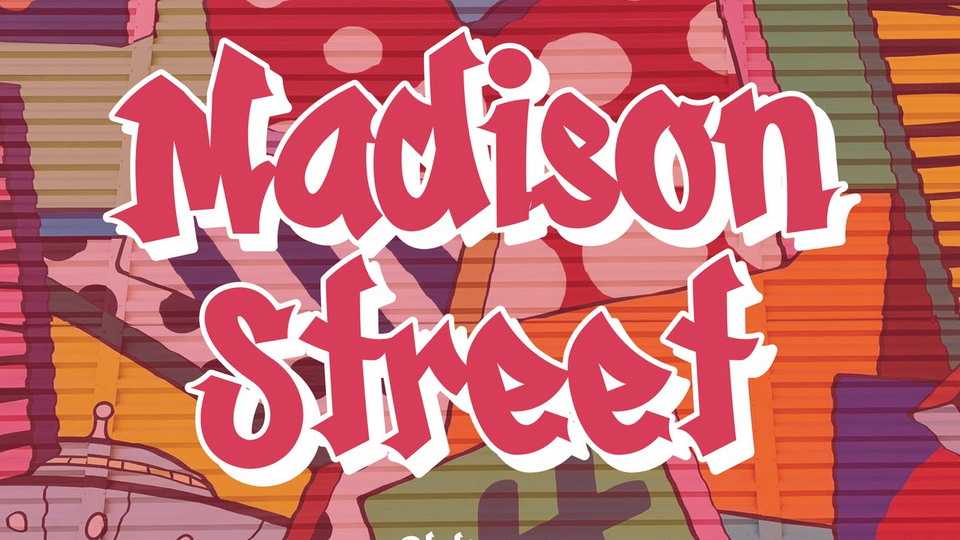
Download Madison Street font, a graffiti typeface. Madison Street suits for hip-hop, rebellious and extreme sport segmented magazines, posters, movie titles, music posters and so on…